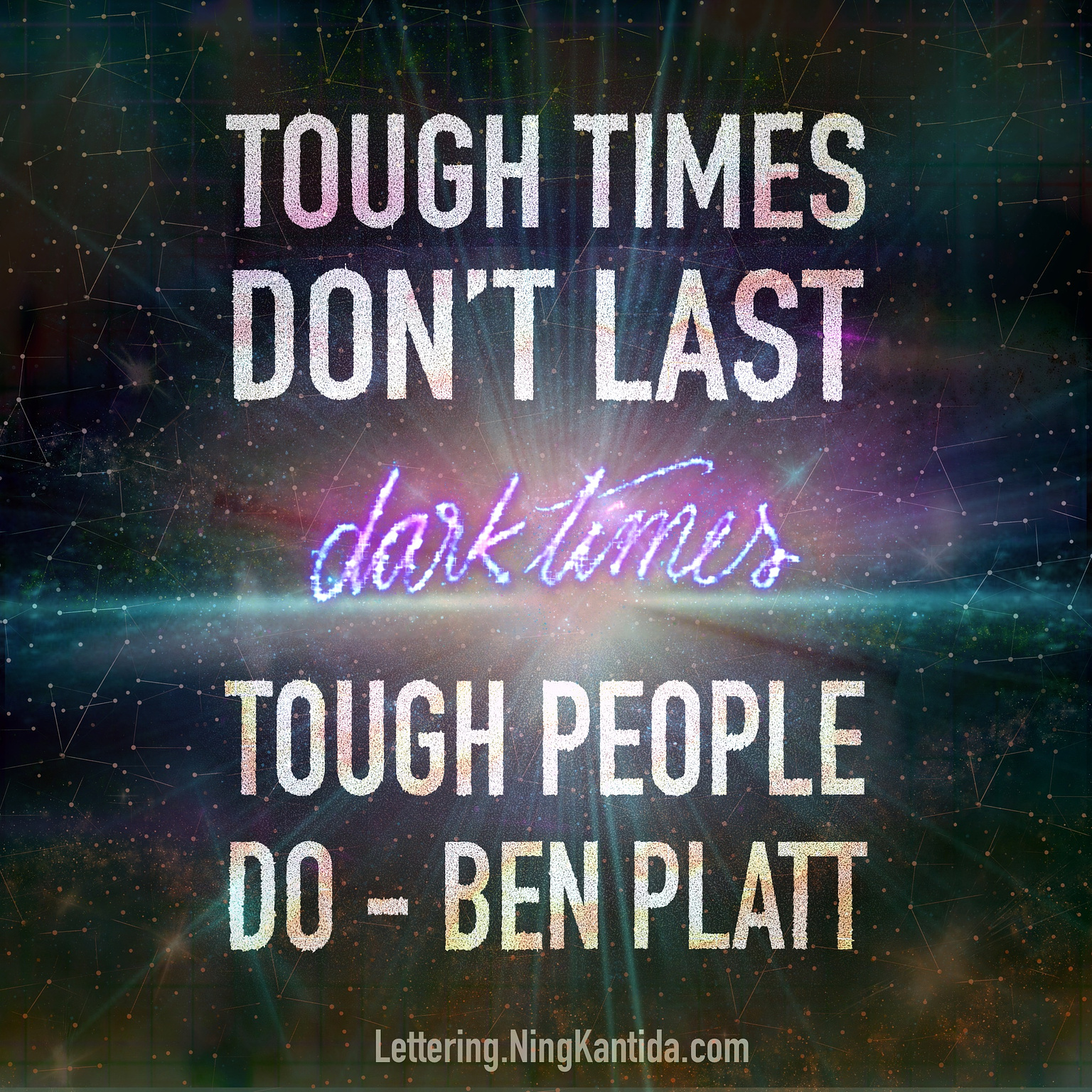
Pride Month Music 04-dark times by Ben Platt
As we approach the end of Pride Month, Iām creating lettering pieces celebrating music related to LGBTQIA+ community. My goal is to expose people to good music and artists while also help bringing the community filled with diversity together, since music is like a universal language that can touch anyoneās heart.
ādark timesā by Ben Platt is the song I wish my younger self could have listened to. It would have spared me much pain and misery as I was growing up.
Just the thought that my future self would smile at me and cheer me on, rather than berate me as miserable piece of shit who does not deserve love or even exist, would have made my life feel more worth living. Hell, even the idea that the future of me actually does exist at all would have been a blessing back then.
Just the thought that my future self would smile at me and cheer me on, rather than berate me as a miserable piece of shit who does not deserve love or even to exist, would have made my life feel more worth living. Hell, even the idea that the future version of me actually exists would have been a blessing back then.
Thatās how much bleakness I experienced when I was a child. I was filled with self-doubt, self-loathing, and self-destructive thoughts during my identity crisis and constantly questioning my own worth of existence.
I constantly imagined the world swallowing me whole, believing that itād be okay because everyone would be better off without me.
Actually, no, I was contemplating how much better off it would be if I could take away the parts of myself that didnāt conform to societal norms. I imagined how much
life would be easier for both myself and those around me, if I were not who I am. I believed the reason life was so hard to bear was because of my own identity.
I felt like a source of darkness, a mistake that would bring suffering to myself and everyone elseālike a black hole swallowing up everyone and everything around me.
But, the truth is, as the song says, you only see the light shine in dark times.
And that light keeps carrying me through life, even during moments when I couldnāt bring myself to see it.
So, here I am today, smiling at my younger selves and cheering each of them on. I also know that all my future selves will do the same.
Tough times donāt last, but tough people do. I am now tough and brave enough to trust that light will shine upon me through both good and bad times.
Life is worth living, so Iām determined to live it fully, no matter what.
For the lettering, I use galaxy as the backdrop, with ādark timesā depicted as stars that shine the light of hope. My favorite lyrics, āTough times donāt last, tough people do,ā convey the idea that this thought will help you see hope and continue persevering through dark times.